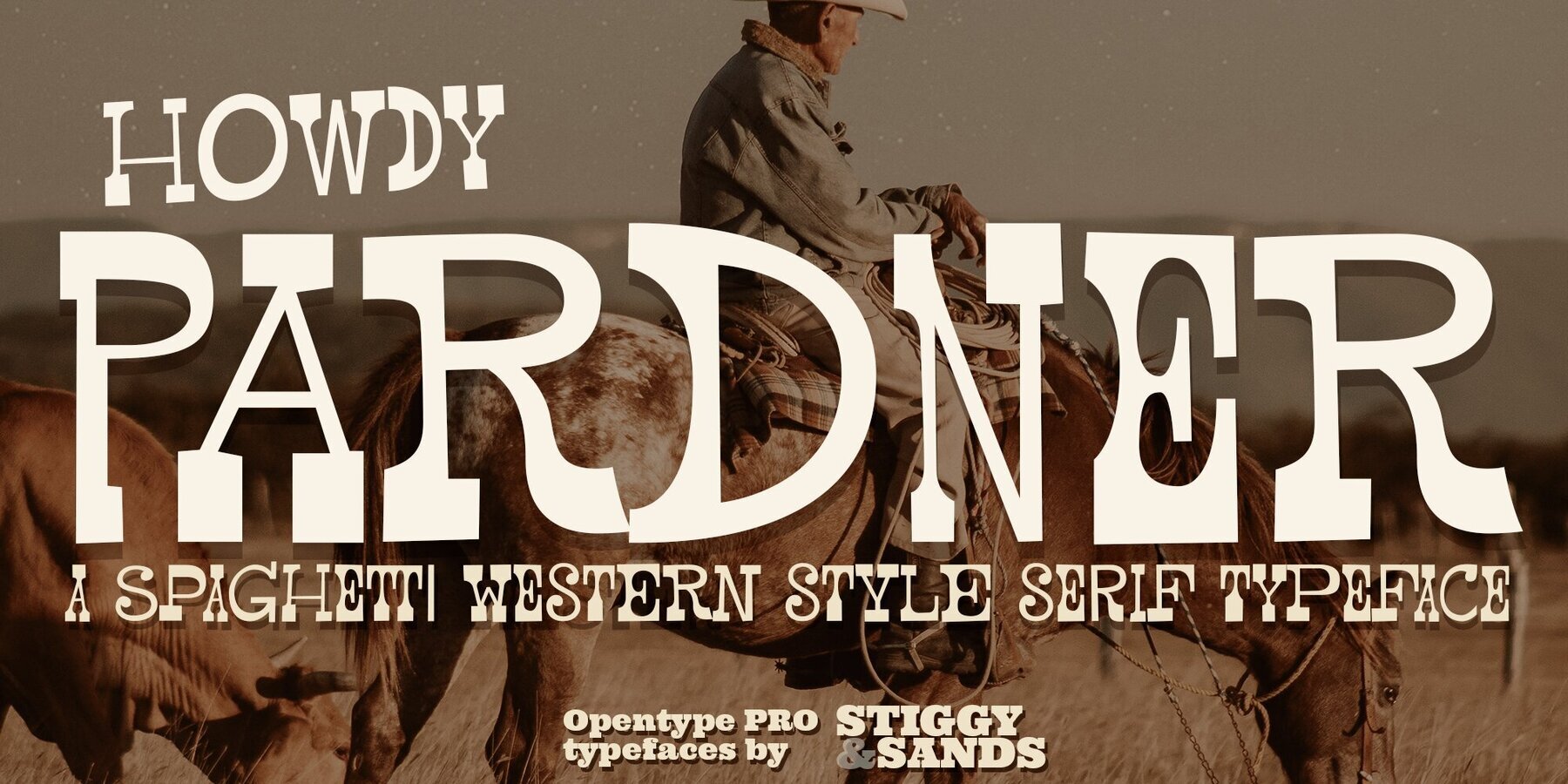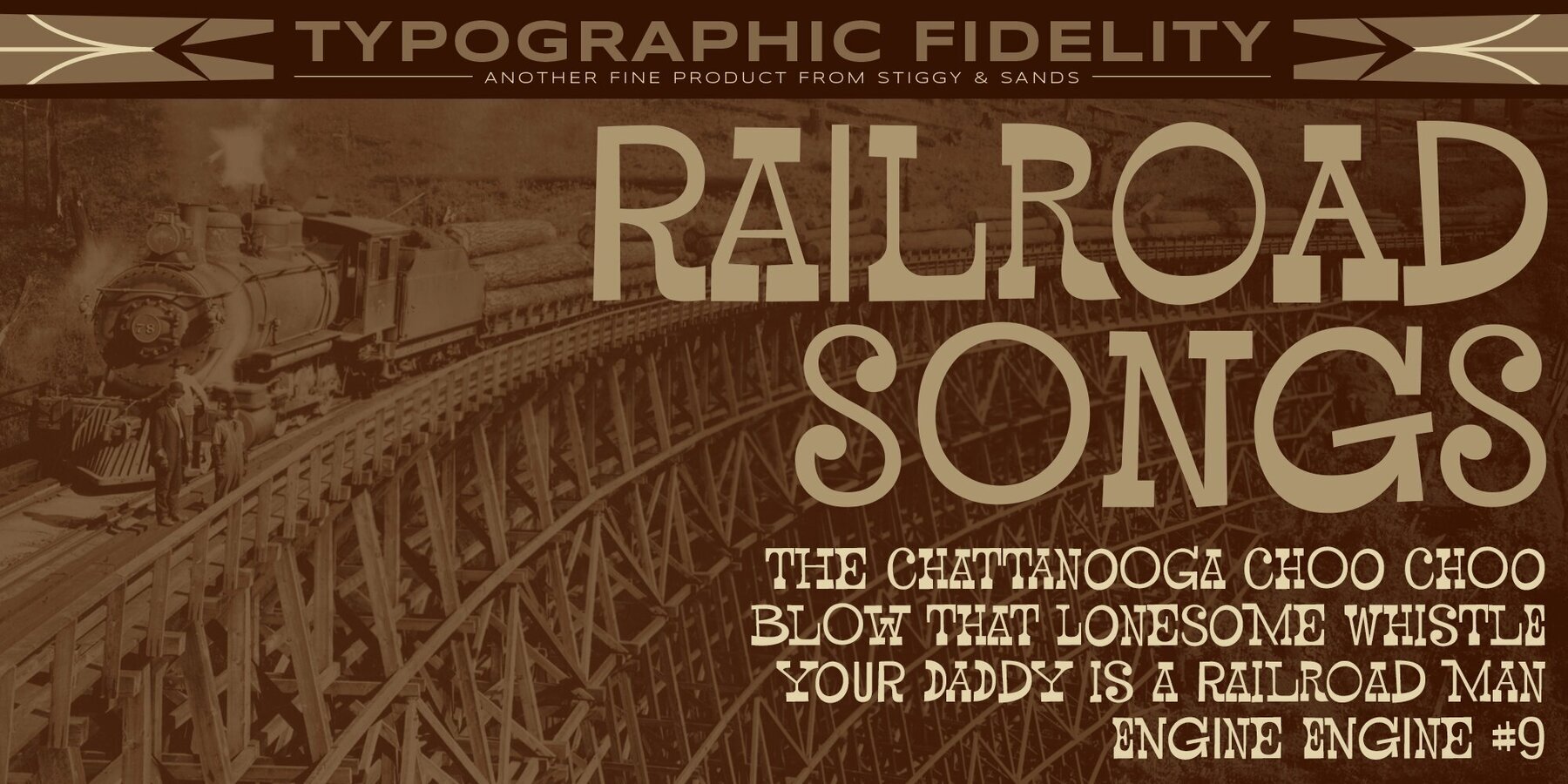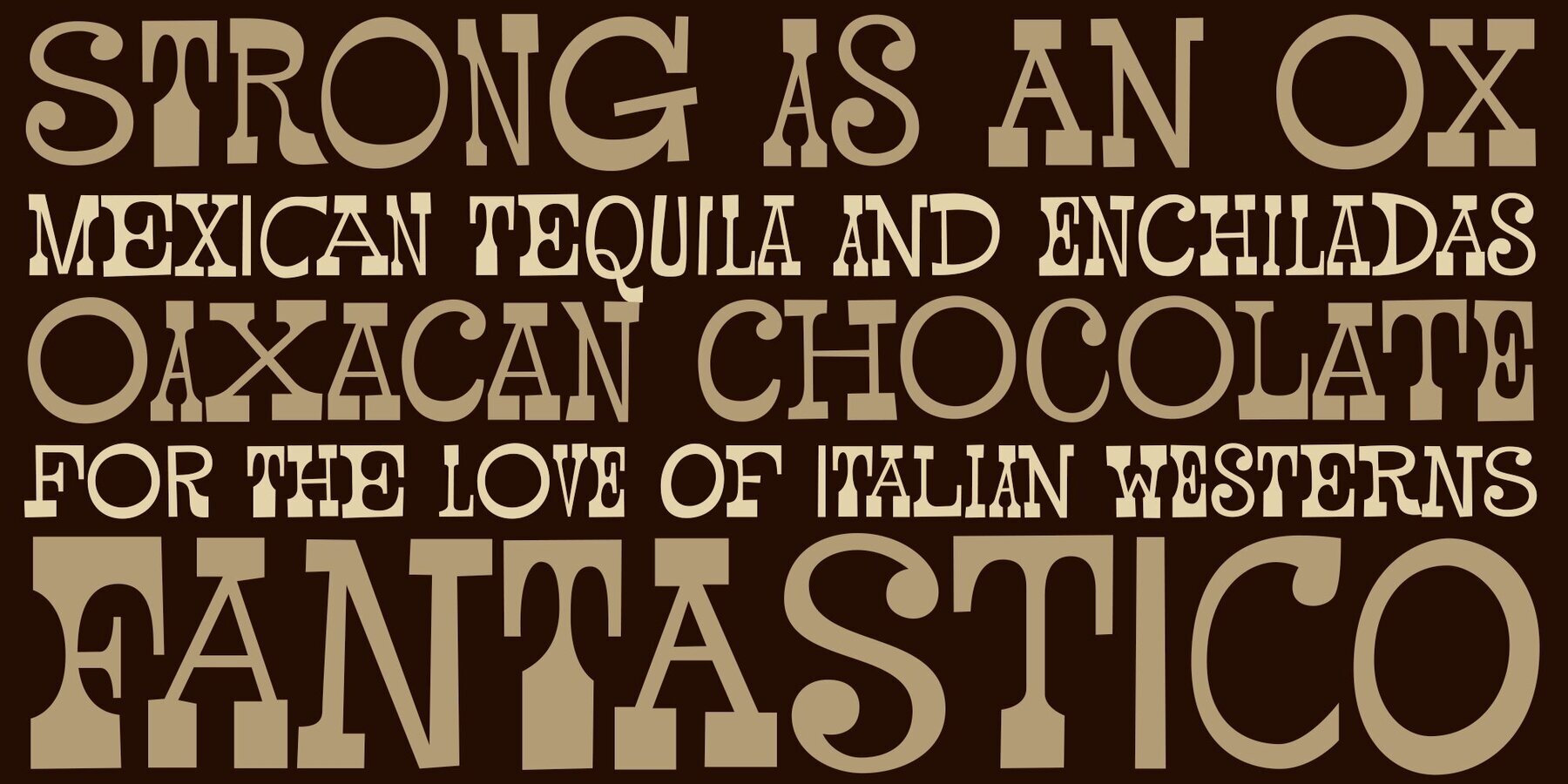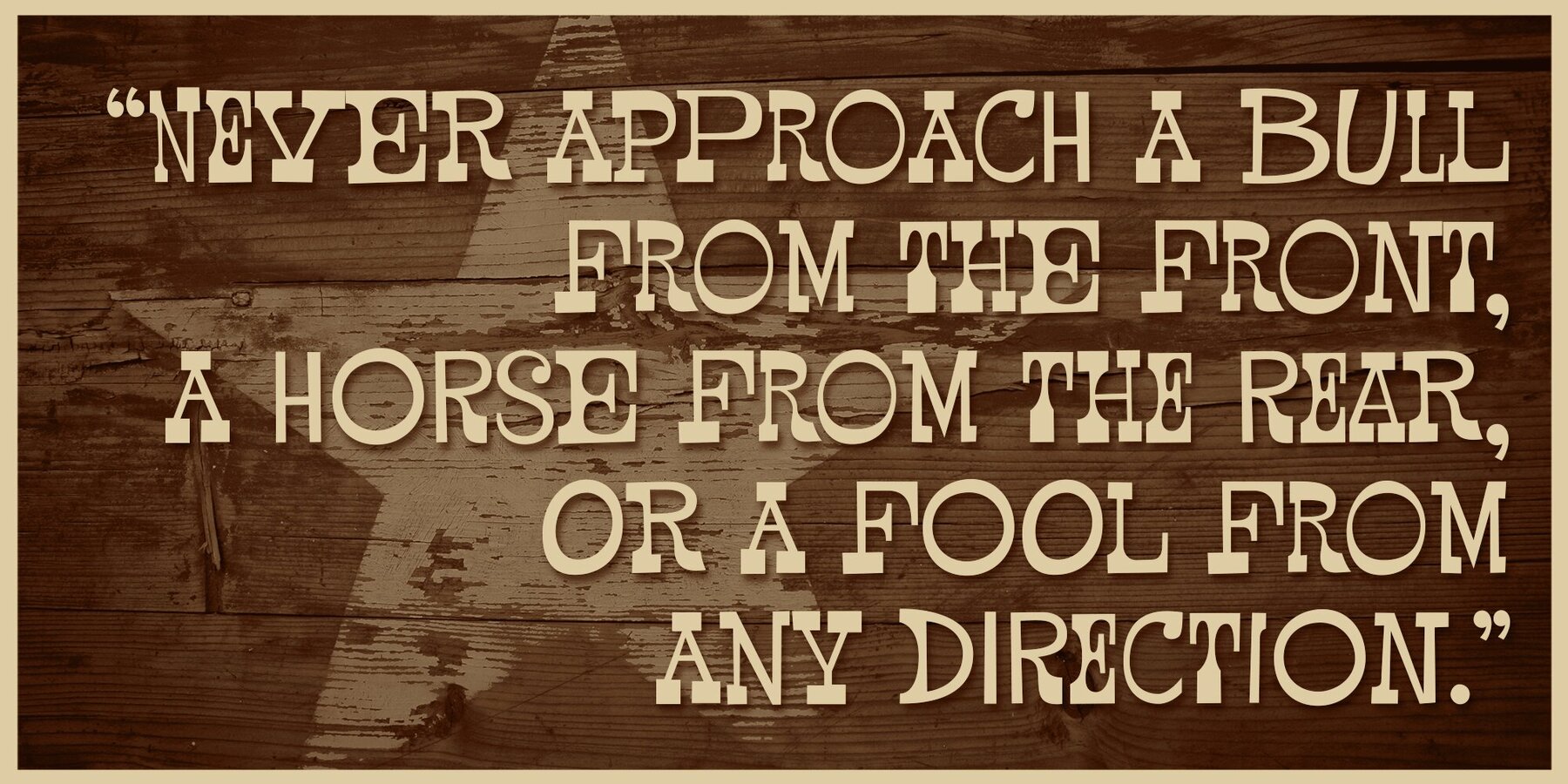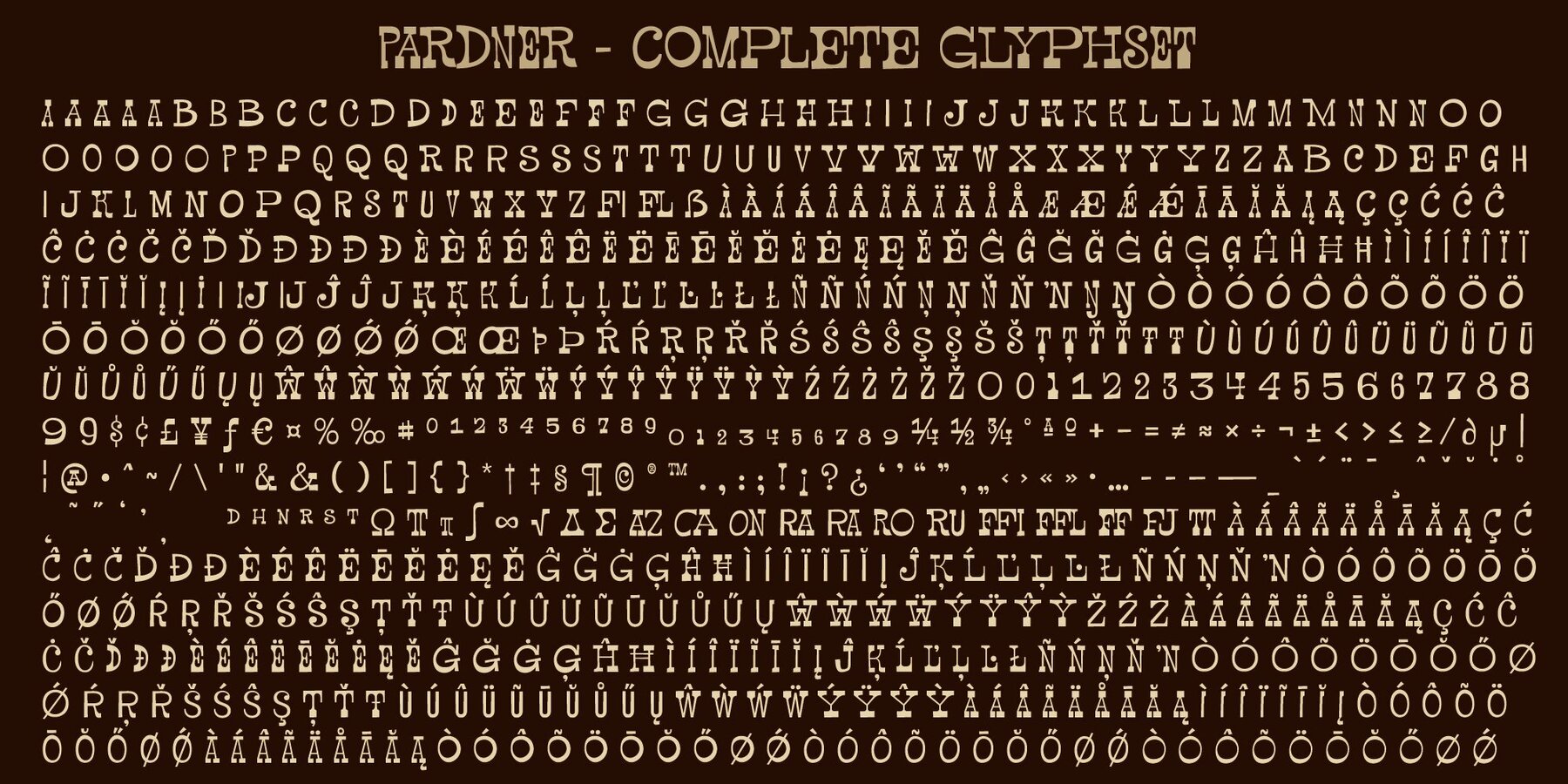
Pardner
Our Pardner font finds its inspiration from the title screens of the 1965 film “West and Soda”, an animated Italian film that was a parody on American Westerns. Director Bruno Bozetto claimed in an interview that he was in fact the originator of the Spaghetti Western, not Sergio Leone.
This offbeat and animated serif typeface has characters of varying width and weighting incorporated into opentype scripting as well as numerous alternates to give a lot of fun and frolicking play in typesetting. You can type with just as much diversity as the titling themselves.
Opentype features include:
- 6 Stylistic Alternate Sets.
- A collection of ligatures as well as programming to automatically alternates between Caps and Lowercase.
- Full set of Inferiors and Superiors for limitless fractions.
- 731 characters of pure joy.